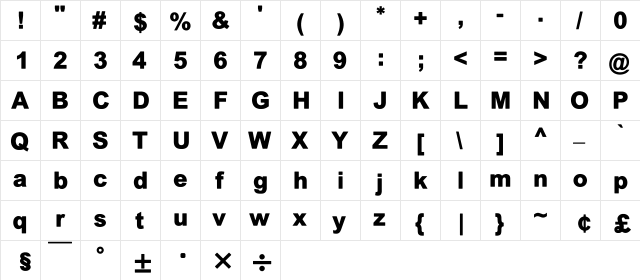
HanWangGSolid06cut1 Regular
Design Context for HanWangGSolid06cut1 Typeface
HanWangGSolid06cut1 takes a measured approach to typography — its balanced proportions and neutral character make it a reliable workhorse for both digital and print work.